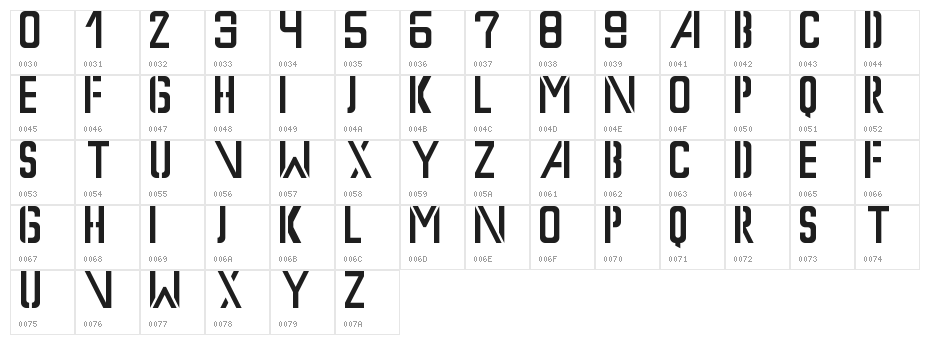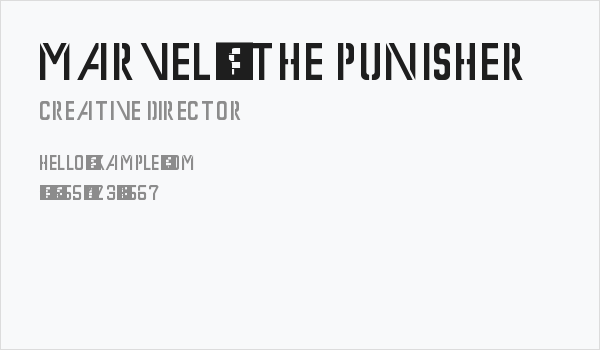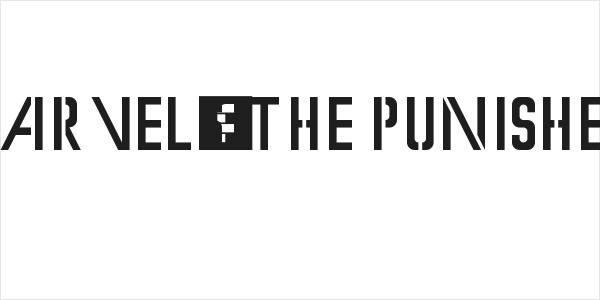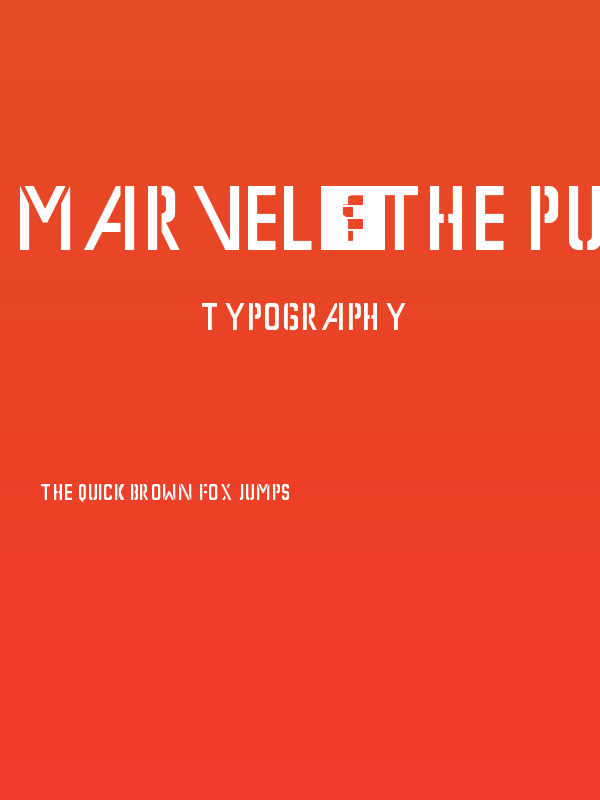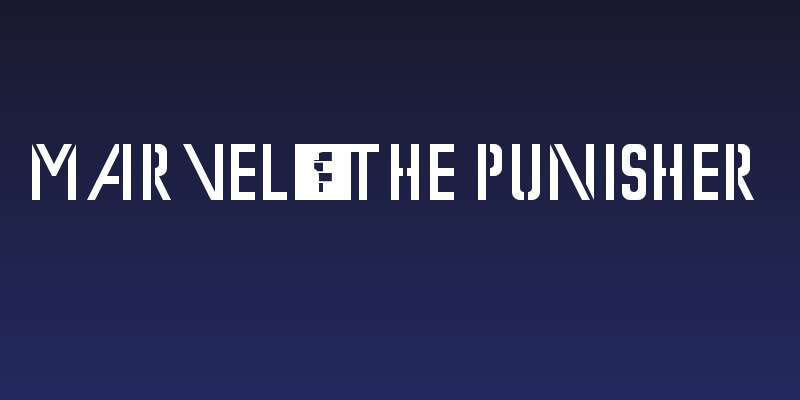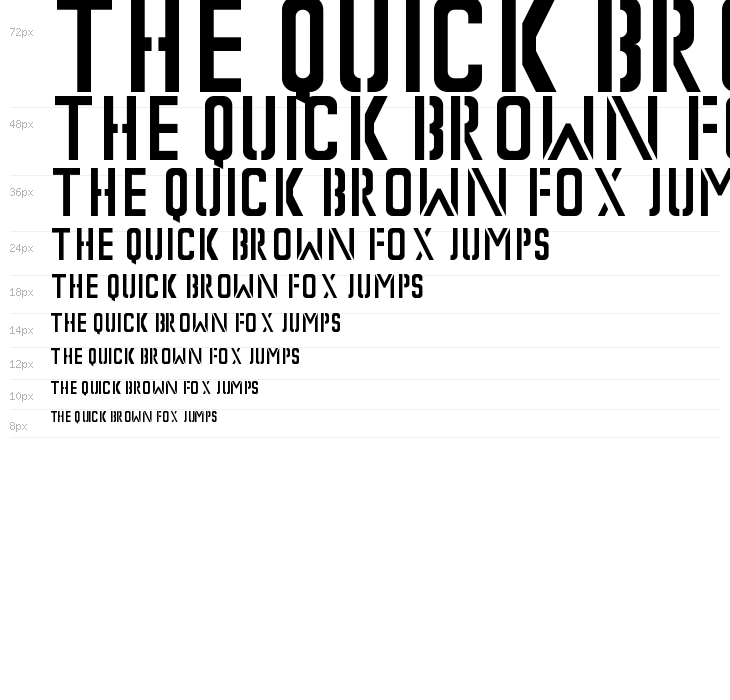
Marvel's The Punisher Font
Marvel's The Punisher Description
This font features a bold, geometric style with sharp angles and a strong presence. The uppercase letters are distinct with a futuristic and industrial feel, characterized by their solid, block-like appearance. The numbers follow a similar design, maintaining consistency across the character set. The font's unique cutouts and angular shapes give it a dynamic and edgy look, suitable for projects that require a modern and impactful aesthetic. The overall design is clean and legible, making it versatile for various applications.
| Proposed Projects | Ideal for use in branding, posters, video game covers, and any project needing a modern, edgy look. |